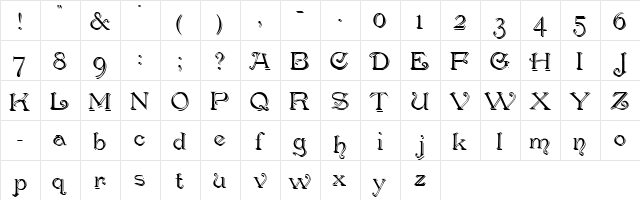
Penshurst_Shadow Roman
Design Context for Penshurst_Shadow Typeface
Penshurst_Shadow brings ornamental detail and strong personality to headlines and identities, where visual impact matters more than quiet functionality.
Font Pairing: Pair with a clean neutral sans-serif for body copy to let Penshurst_Shadow's character lead without overwhelming the composition.
Pro Tip: Use Penshurst_Shadow exclusively at display sizes — it was designed to be seen, not read at length. Let a neutral companion handle body copy.